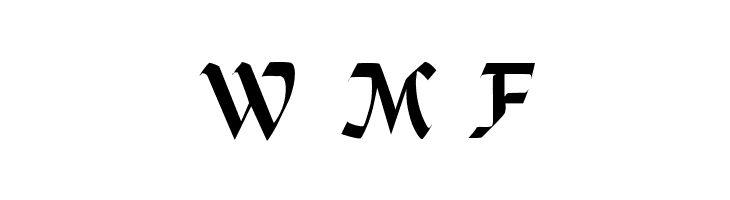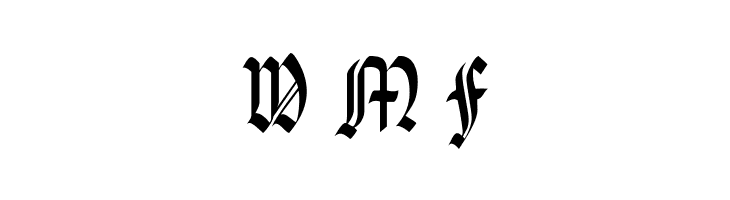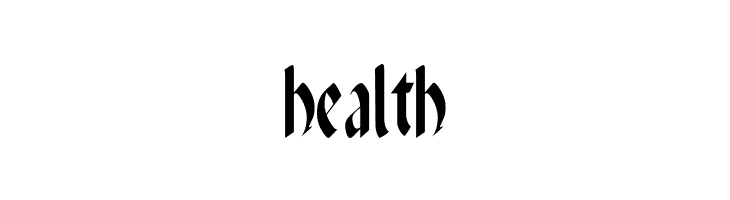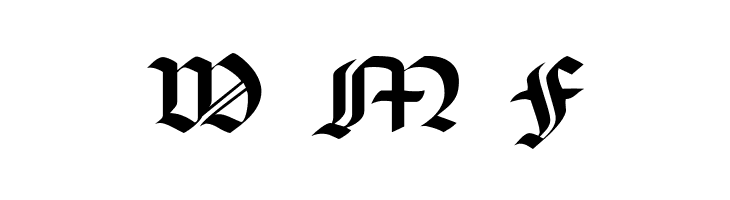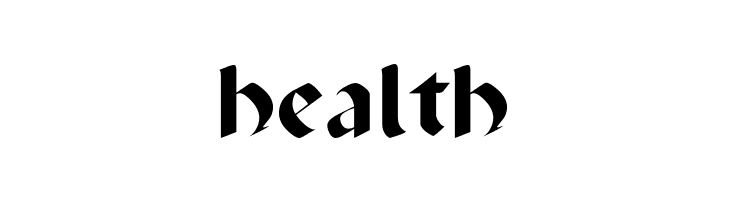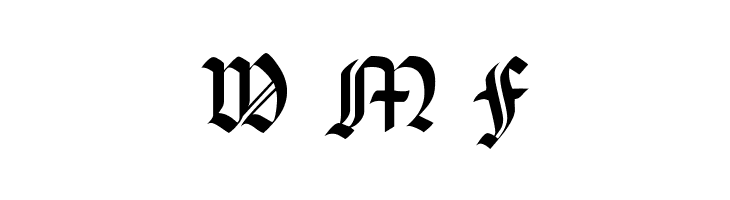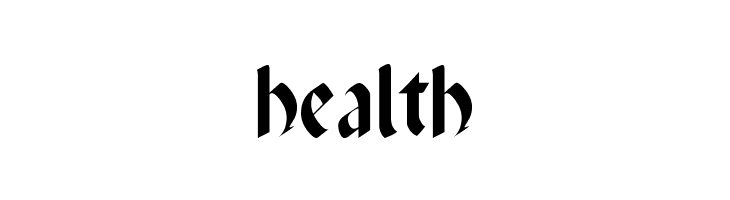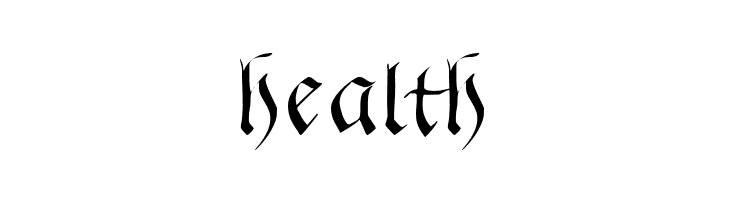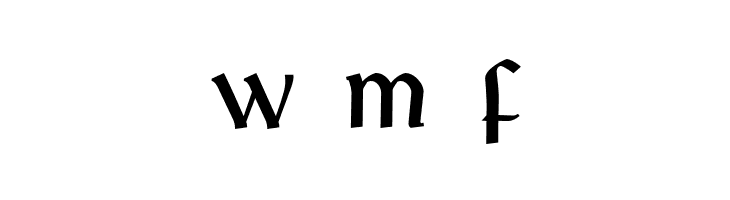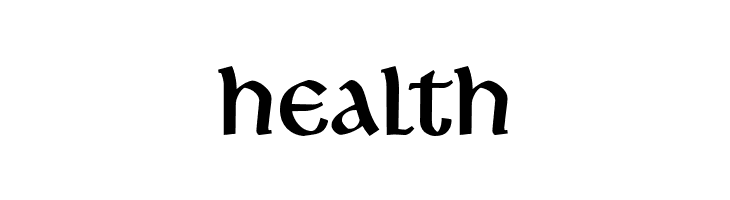
A bold, blackletter-style font with sharp, angular lines and a medieval aesthetic.
A bold, blackletter-style font with sharp angles and dramatic strokes.
A classic blackletter font with bold, angular letterforms and a narrow design.
A bold, gothic-style font with intricate details and a medieval flair.
An ornate blackletter font with intricate, angular designs and a medieval aesthetic.
A classic blackletter font with bold, angular letterforms and a medieval aesthetic.
A bold, medieval-inspired font with sharp, angular strokes and a classic appearance.
A bold and ornate Blackletter font with a medieval aesthetic.
A decorative Blackletter font with intricate, gothic-inspired letterforms.